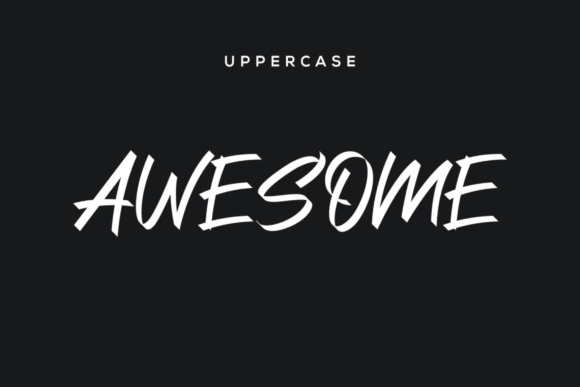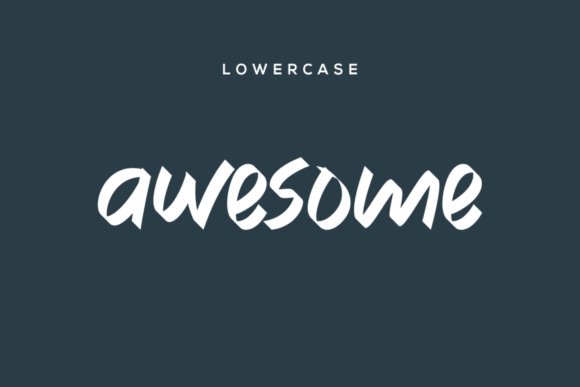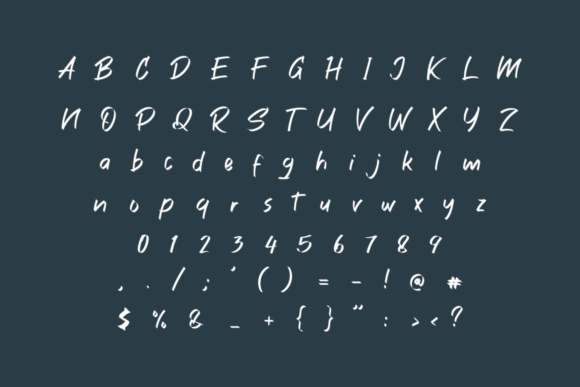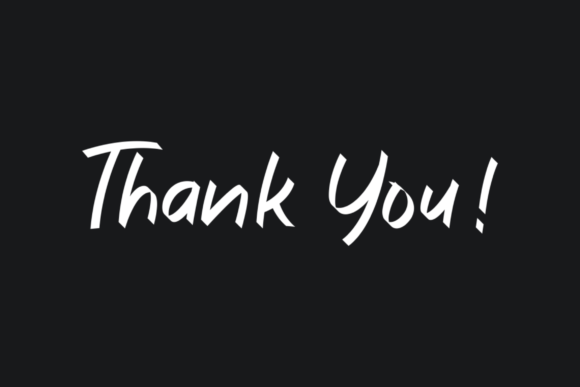
The Designer’s Delight: Alung Cimori Font
I still remember the frustration of working on a branding project, hours spent searching for the perfect font, only to end up with something that just didn’t feel right. My client wanted a bold, authentic look that would make their logo stand out, but I was struggling to find a font that fit the bill. That’s when I stumbled upon Alung Cimori, a game-changing display font that has since become a staple in my design toolkit.
So, what makes Alung Cimori so special? Let’s dive into the good stuff:
- ✨ Bold and authentic: Alung Cimori exudes confidence and energy, making it perfect for logos, t-shirt printing, sports, and more.
- ✅ Versatile: This font looks outstanding in a wide range of contexts, from digital displays to print materials.
- 🎉 Eye-catching: The unique character design and bold lines ensure that your text will grab attention and leave a lasting impression.
Of course, no font is perfect, and Alung Cimori has a few minor quirks:
- 🤔 Limited use in body text: Due to its bold nature, Alung Cimori is best suited for headlines and titles rather than large blocks of text.
- ⚠️ Some glyphs may require adjustment: Depending on your design, you might need to tweak certain glyphs to ensure optimal spacing and alignment.
A Practical Guide: Using Alung Cimori in Your Designs
- Experiment with OpenType features, such as stylistic alternates, to add visual interest to your text.
- Explore the font’s glyphs and OpenType features by accessing the Glyphs panel or using keyboard shortcuts.
The Story Behind Alung Cimori
Alung Cimori was designed with the goal of creating a bold, authentic display font that would inspire creativity and confidence. The design process involved experimenting with different shapes and lines to create a unique character that would stand out in any context. The result is a font that is both stylish and versatile, perfect for designers, crafters, and creative hobbyists.
| What is Alung Cimori best suited for? | Alung Cimori is ideal for logos, t-shirt printing, sports, and other branding projects that require a bold and authentic look. |
| Can I use Alung Cimori for body text? | While Alung Cimori can be used for body text, it’s best suited for headlines and titles due to its bold nature. |